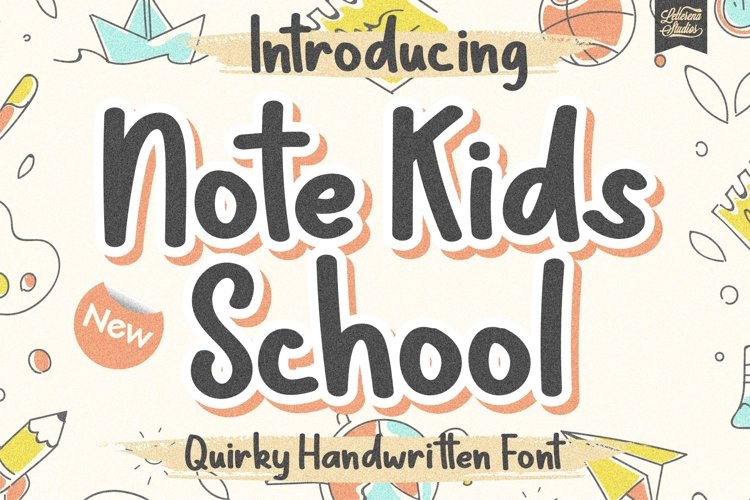
Note Kids School - Quirky Handwritten Font, from Letterena, is a Beautiful Quirky font, suitable for any projects such as: logos, branding projects, homeware designs, product packaging, mugs, quotes, posters, shopping bags, t-shirts, book covers, name card, invitation cards, greeting cards, label, photography, watermark, special events, and all your other lovely projects that need a beautiful Quirky taste.